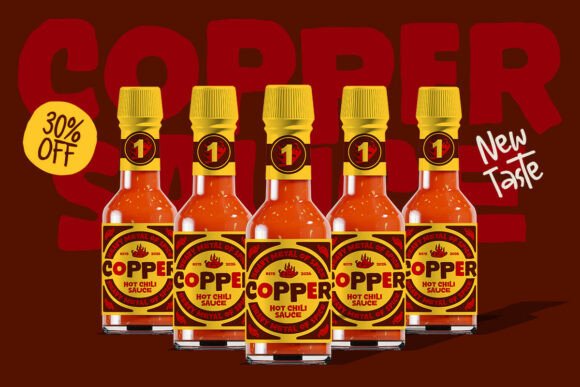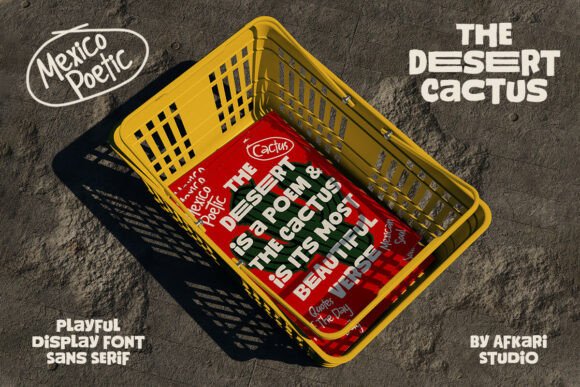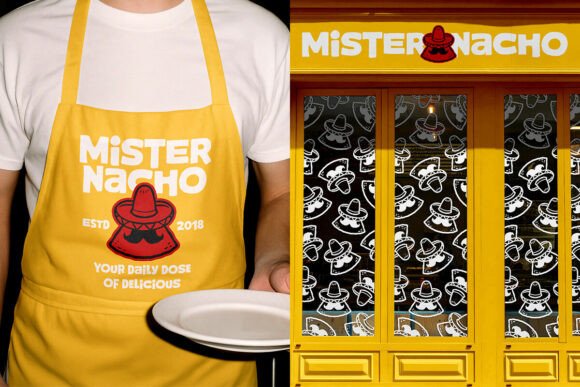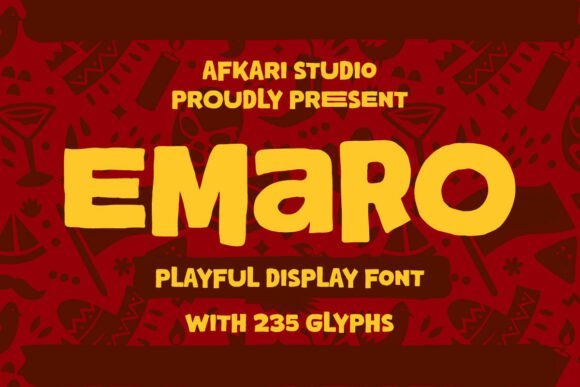
Introduction to Emaro Font
Emaro is a playful display font designed to bring fun, energy, and personality into your designs.
With its bold shapes and cheerful character, Emaro instantly creates a friendly and eye-catching look, making it perfect for creative projects that need a lively visual voice This font combines modern styling with playful letterforms, making it versatile for both kids-oriented and contemporary branding projects.
Key Features of Emaro Font
Why Choose Emaro Font?